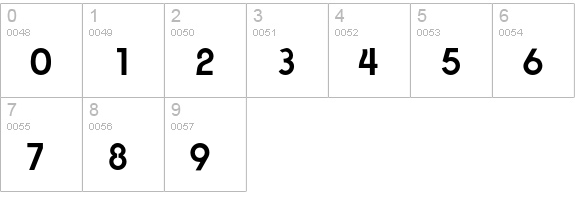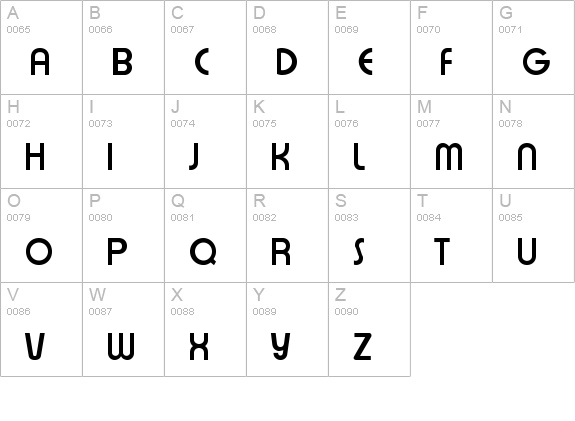
ExpressaEF-DemiBold Font Details
ExpressaEF-DemiBold is a sub-bold, structured variant in the ExpressaEF typeface family \xE2\x80\x94 well suited to sub-headlines and emphasised passages.
ExpressaEF-DemiBold is a visually striking and versatile font that exudes strength and confidence. With its bold strokes and clean lines, this font commands attention and makes a bold statement in any design project. Whether used in headlines, logos, or posters, ExpressaEF-DemiBold adds a touch of modern sophistication and elegance. The best part? ExpressaEF-DemiBold is available for free download at FontsMarket.com. This means that you can easily access this high-quality font to elevate your designs without any cost. Don't miss out on the opportunity to enhance your projects with the powerful presence of ExpressaEF-DemiBold. Download it now and let your creativity shine!